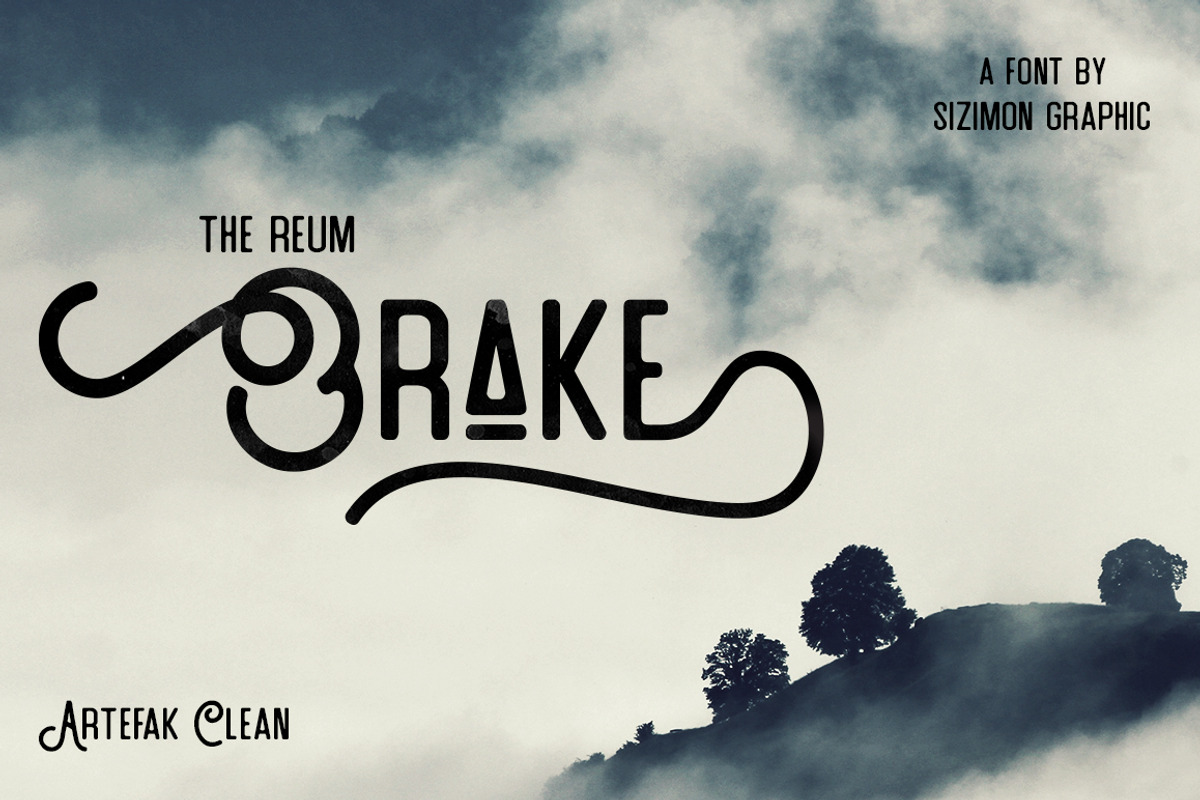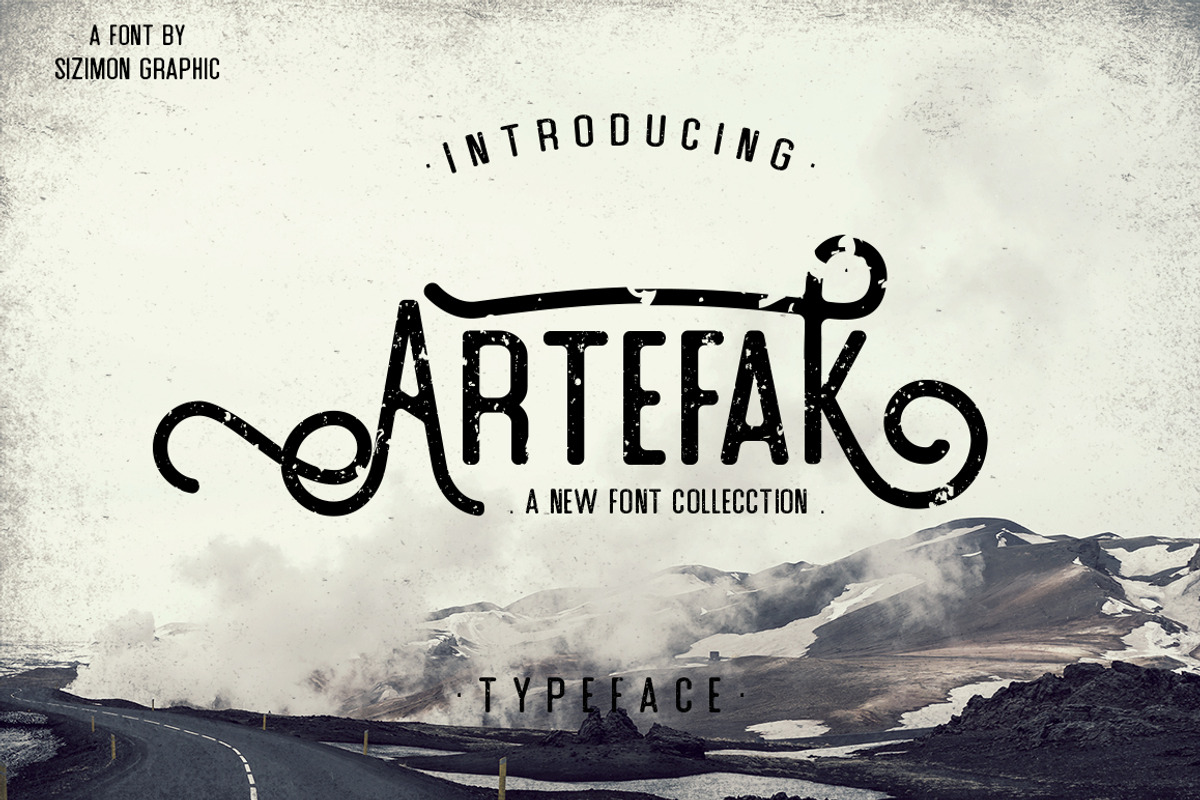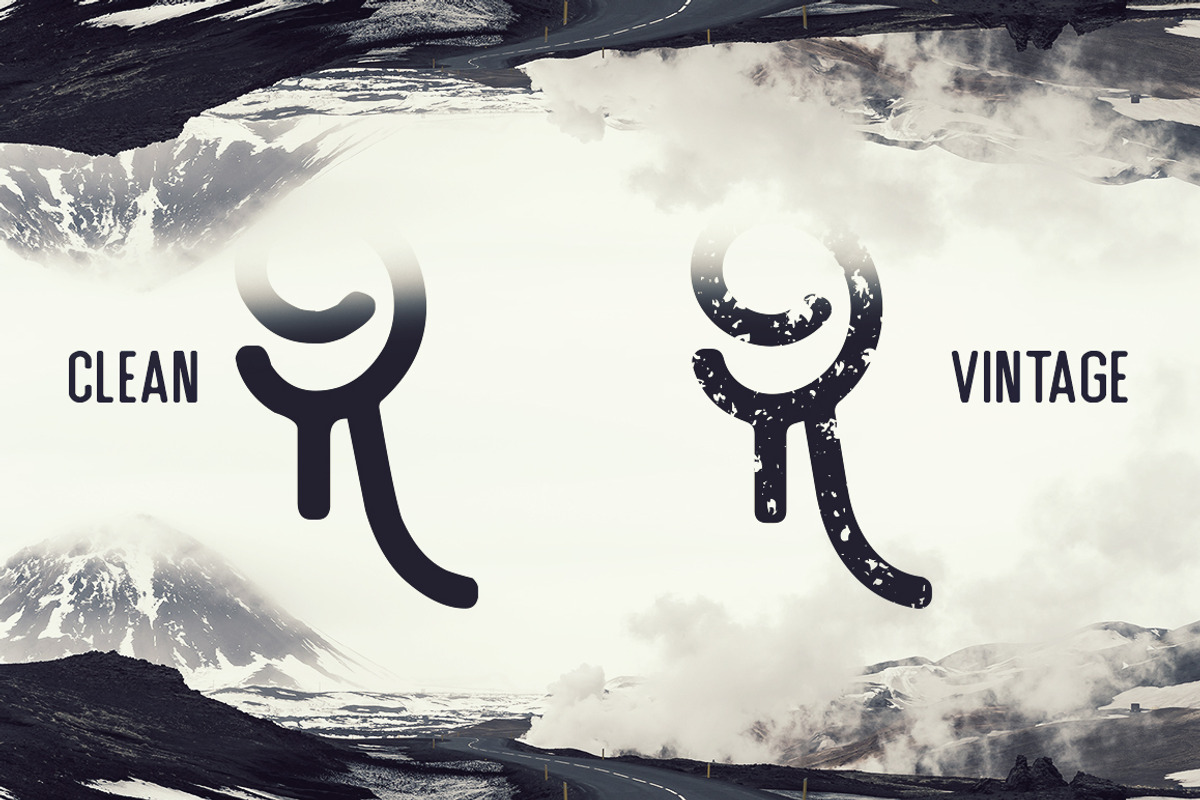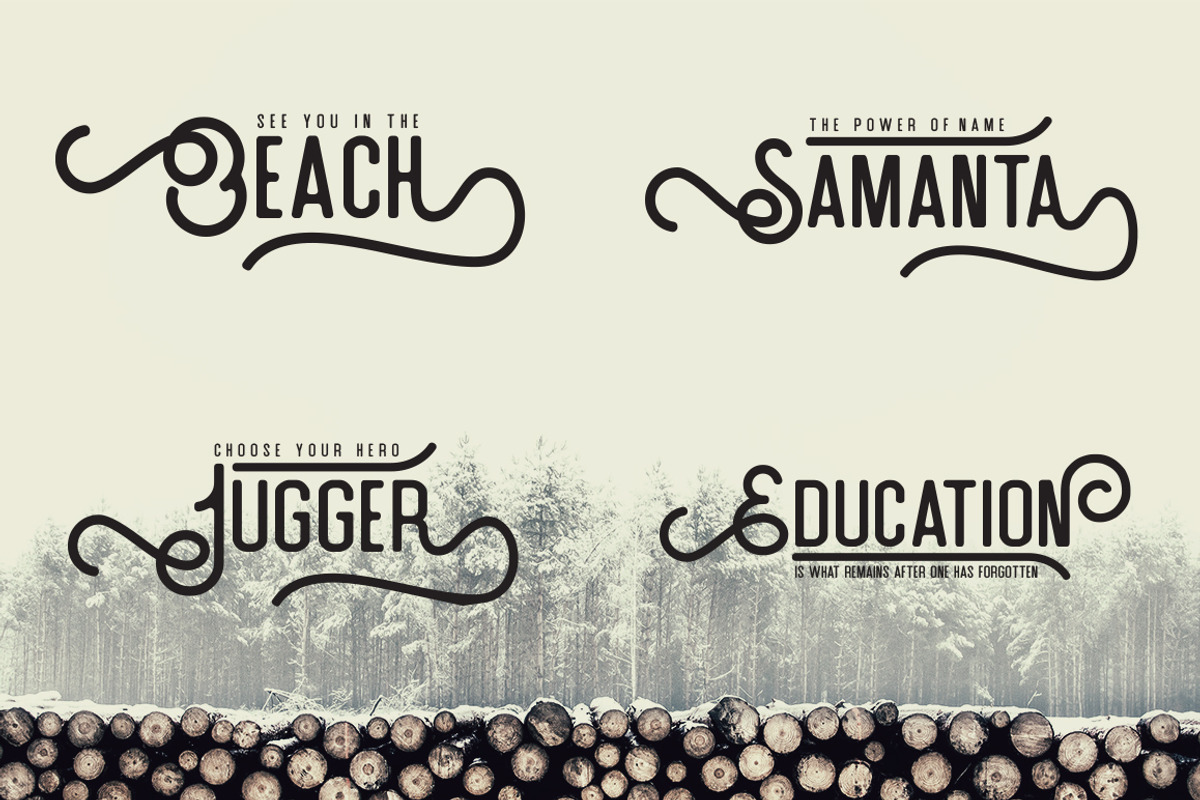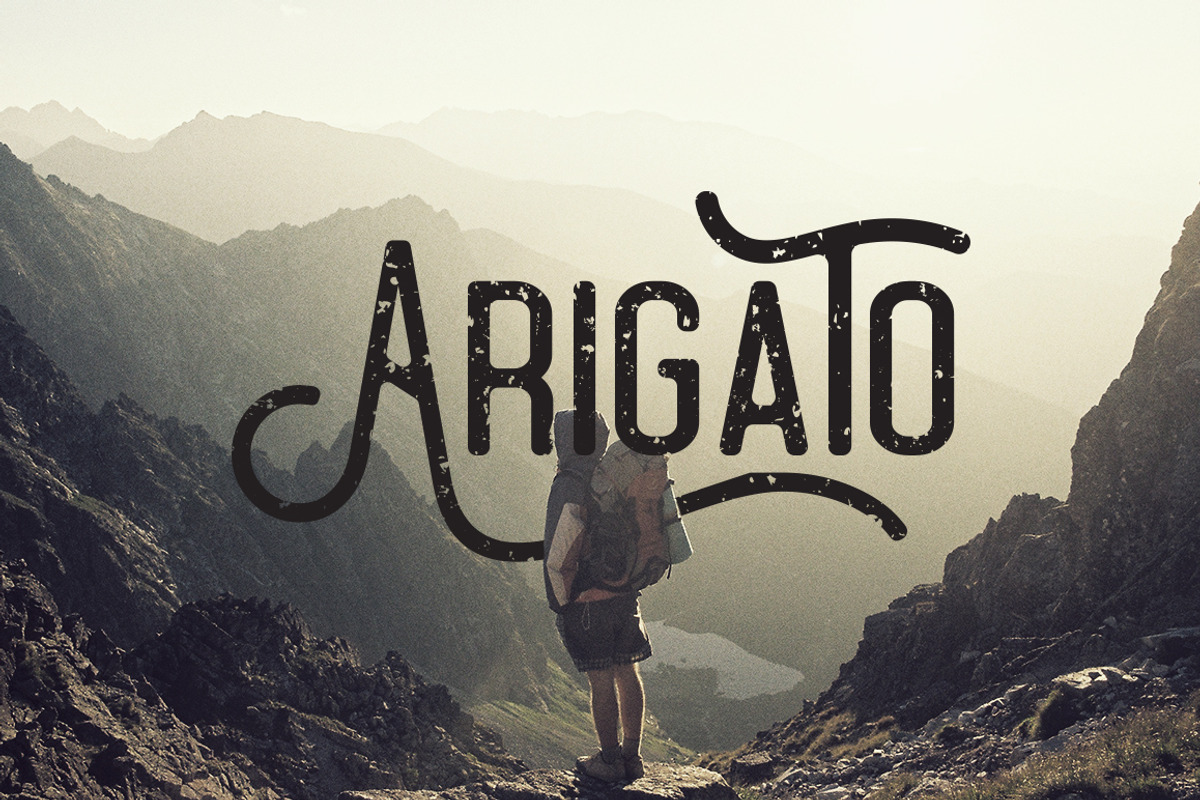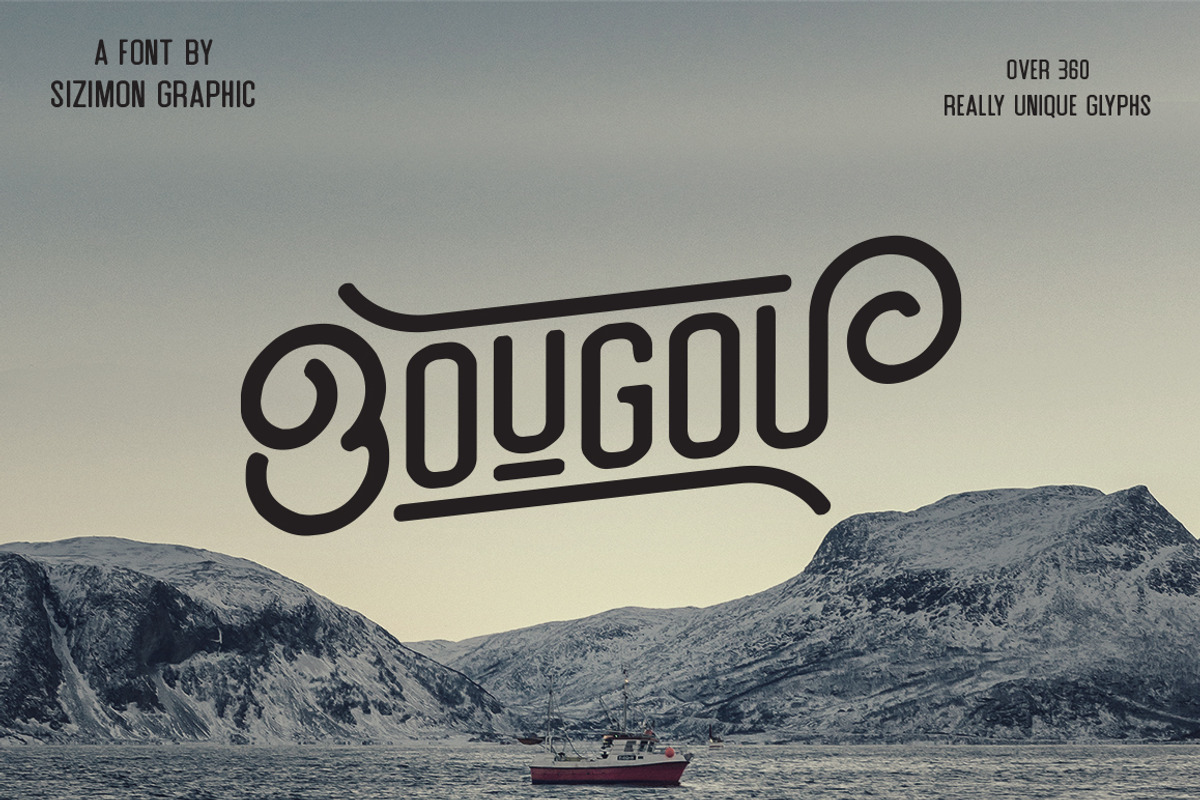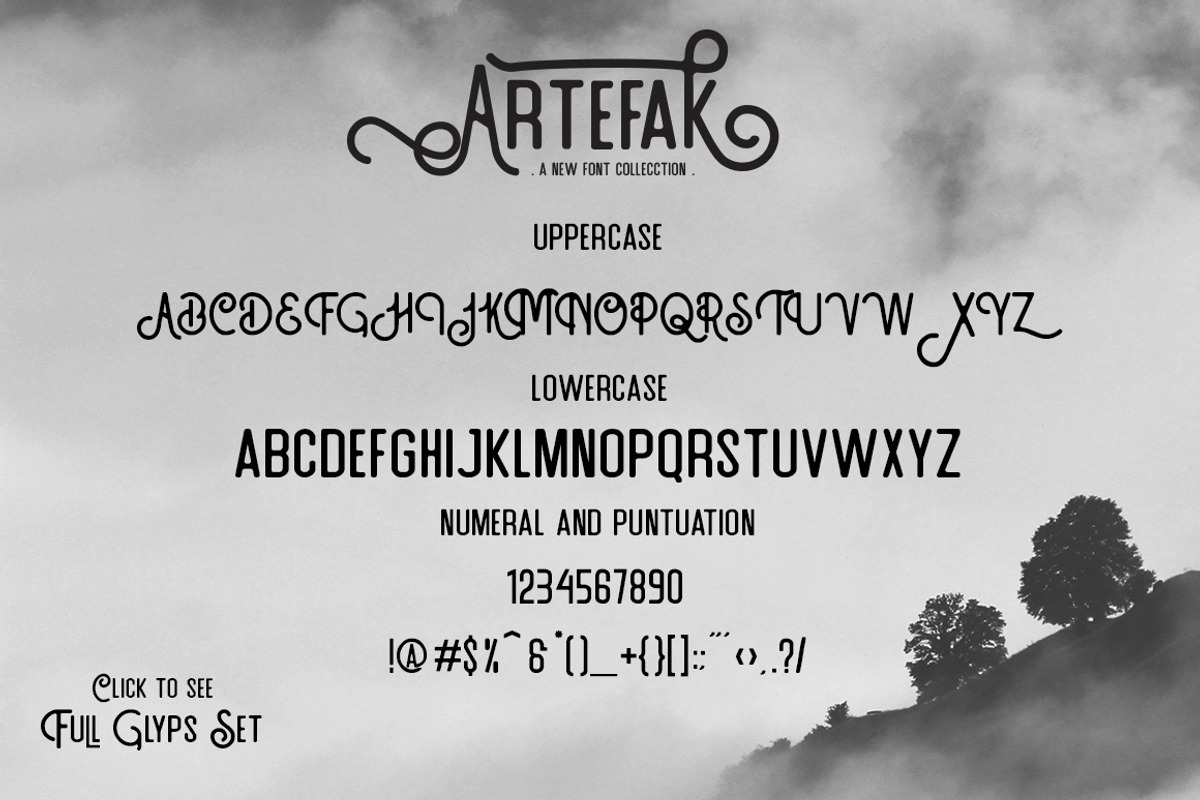
Artefak Typeface
Artefak Typeface by sizimon is a font selected for branding, posters, packaging, typography.
- Artefak Typeface A handmade typeface with two style Clean and Vintage that inspired from hand-drawn lettering and vintage style, suitable fo
Why Artefak Typeface is worth a look
Artefak Typeface by sizimon fits naturally into Branding, posters, packaging, typography.